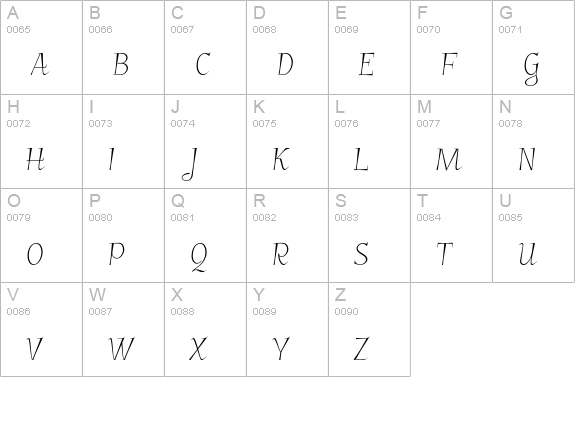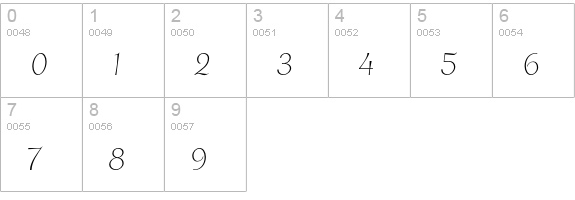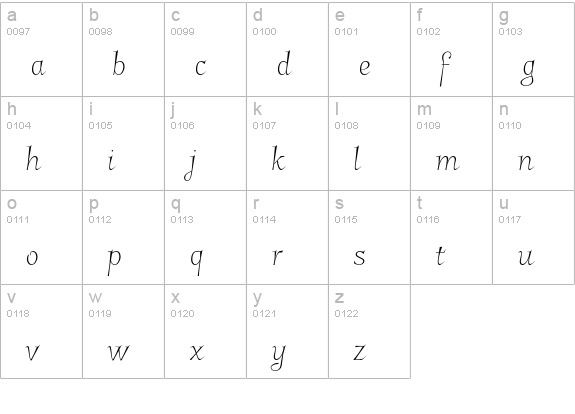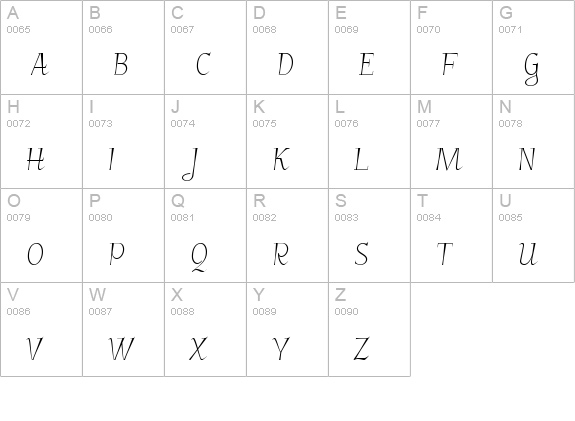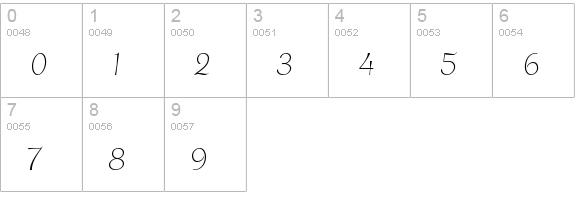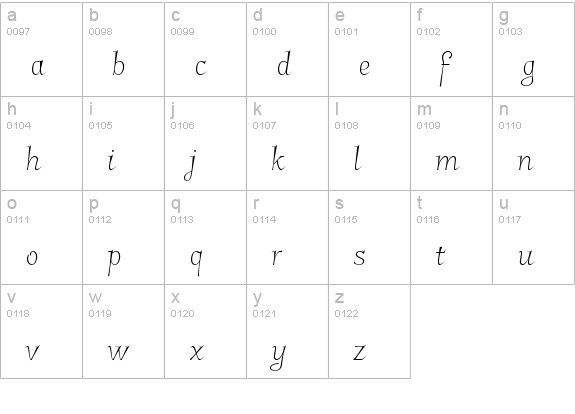
Garineldo Font Details
Garineldo font is a beautiful and versatile typeface that is sure to catch the eye and add a touch of elegance to any design project. With its clean lines and graceful curves, this font is perfect for both headlines and body text. Whether you're creating a logo, designing a website, or working on a branding project, Garineldo font will give your work a polished and professional look. One of the best things about Garineldo font is that it is free. That's right, you can download this stunning font for absolutely no cost. It's a fantastic option for designers on a budget or anyone who wants to add a touch of sophistication to their work without breaking the bank. To get your hands on Garineldo font, simply head over to FontsMarket.com, where it is freely available for download. This user-friendly website offers a wide range of high-quality fonts, and Garineldo font is no exception. With just a few clicks, you can have this gorgeous typeface installed on your computer and ready to use in your next project. So why wait? Download Garineldo font today and see the difference it can make in your designs. Whether you're creating a print advertisement, a social media graphic, or a website layout, this font is sure to impress. Don't miss out on this incredible opportunity to enhance your work with a stylish and free font. Get Garineldo font now at FontsMarket.com.